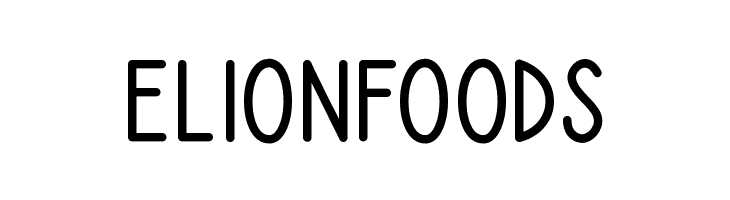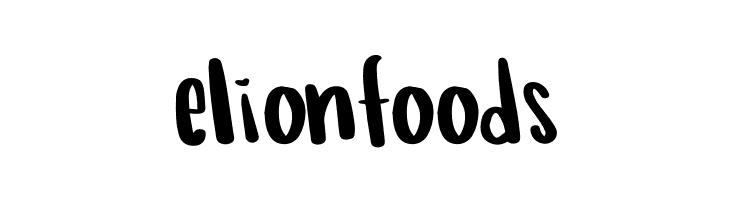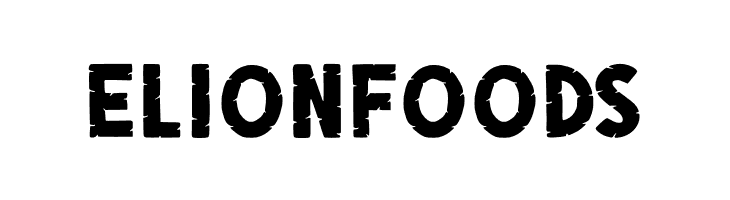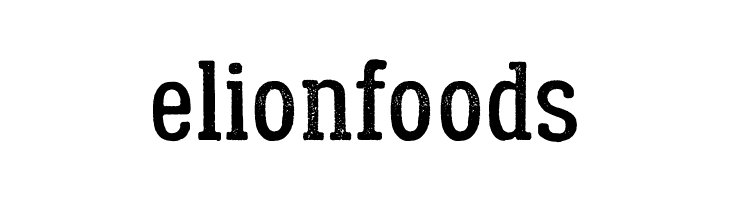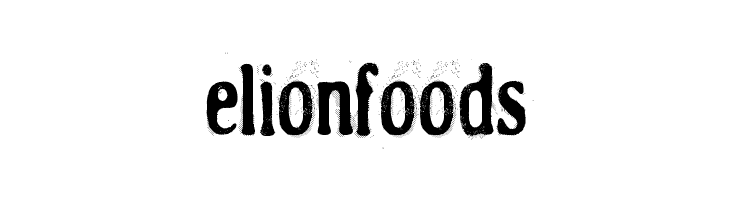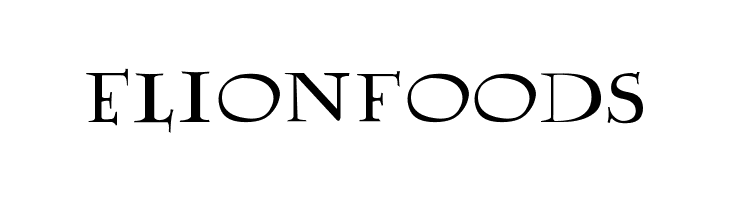
A bold, textured font with a rustic, handcrafted appearance.
A rugged, textured font with shadow effects and a vintage, handcrafted feel.
A bold, distressed font with a vintage, rugged texture.
A playful, bold font with a bubble-like outline and rounded characters.
A playful, hand-drawn font with rounded edges and consistent spacing.
A bold, playful handwritten font with a casual and friendly style.
A bold, distressed font with a grunge, stamped appearance.
A modern, geometric outlined font with a clean, technical aesthetic.
A whimsical, fantasy-themed font with magical embellishments.